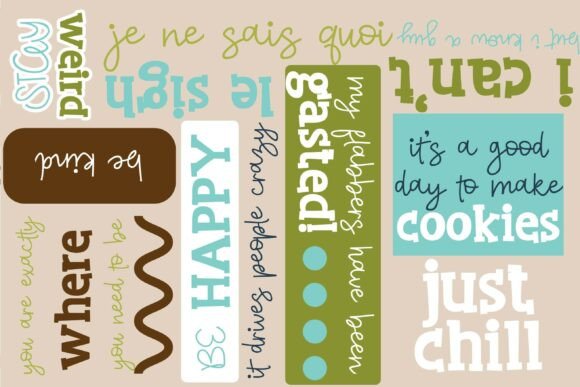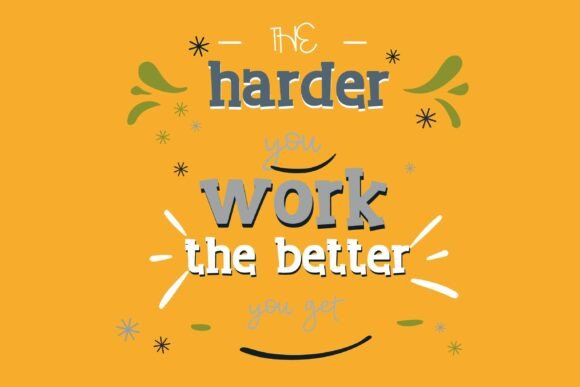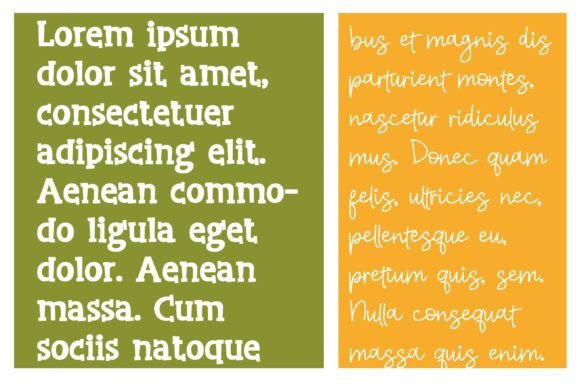
Introduction to Pork City and Gilbert Duo Font
Gilbert & Pork City is a playful font duo that combines a casual handwritten script (Gilbert) with a bold, crafty serif (Pork City).
This fun and quirky pair is perfect for children’s books, retro designs, product packaging, greeting cards, and anything that needs a cheerful, handmade feel Use them together or separately for a charming and dynamic design result.
Key Features of Pork City and Gilbert Duo Font
Why Choose Pork City and Gilbert Duo Font?
Pork City and Gilbert Duo Font offers exceptional quality and versatility, making it a valuable addition to your design toolkit. Whether you’re creating for personal projects or commercial use, Pork City and Gilbert Duo Font delivers professional results.